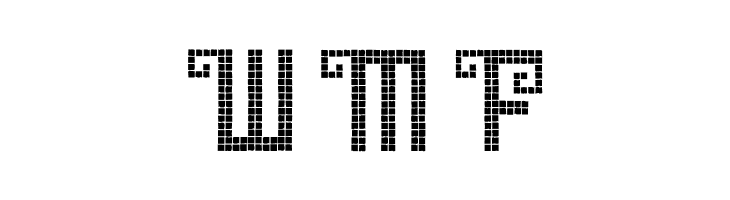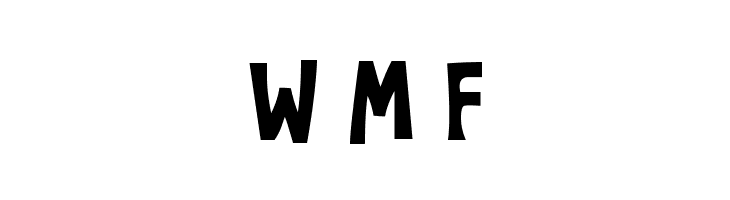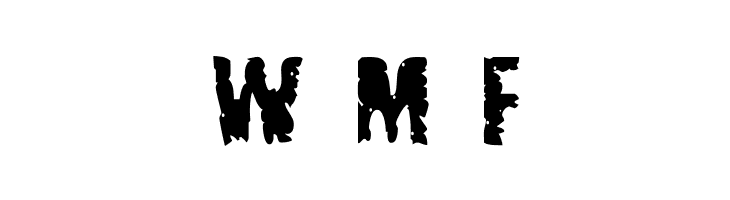
A festive, decorative font styled as Christmas lights, perfect for holiday-themed projects.
A playful, rounded font with bold, approachable characters.
A bold, italicized font with an industrial and futuristic style.
A pixelated, retro-style font with a digital, blocky design.
A bold, gothic-inspired font with sharp angles and a 3D shadow effect.
A bold, 3D geometric font with a shadow effect for striking visual impact.
A playful, hand-drawn font with a crayon-like appearance and thick, rounded strokes.
A classic serif font with elegant and refined characters.
A modern, geometric font with uniform line thickness and a minimalistic design.
A pixelated, blocky font inspired by retro digital displays.
A bold, slab serif font with strong, well-defined characters.
A decorative font with bee and floral motifs, offering a whimsical and elegant style.
A playful, blocky font with a pixelated, retro style.
A playful, casual handwritten font with dynamic strokes.
A bold, geometric font with a retro-futuristic style and multi-line outlines.
A bold, graffiti-inspired handwritten font with dynamic, expressive strokes.
A decorative inline font with elegant, parallel line detailing.